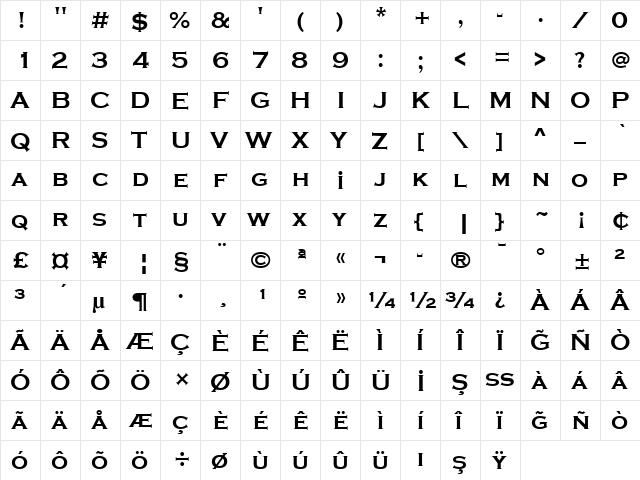
TRCopperplate Gothic Bold Regular
Design Context for TRCopperplate Gothic Bold Typeface
TRCopperplate Gothic Bold takes a clean, functional approach — its unadorned letterforms prioritise legibility and work reliably across screen and print environments. Its bold stroke weight gives it real presence on the page.
A strong choice for UI design, app interfaces, bold signage, and corporate brand systems.
Font Pairing: Use TRCopperplate Gothic Bold for headlines alongside a lighter-weight sans or serif for body copy to establish clear visual hierarchy.
Pro Tip: Pair TRCopperplate Gothic Bold with a display or serif font for headlines — its neutral character makes it an excellent supporting player in complex typographic systems.